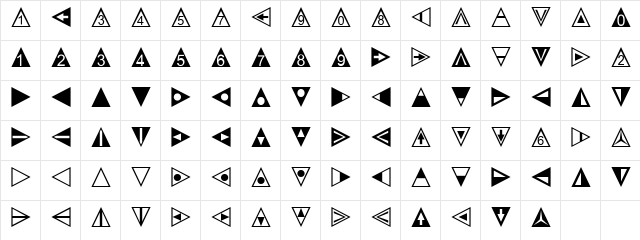
LTTapestry Triangle Regular
Design Context for LTTapestry Triangle
LTTapestry Triangle is a composed and adaptable typeface that performs quietly and consistently across a wide range of design contexts.
Pro Tip: Use LTTapestry Triangle in both headline and body roles to test its range before committing to a single application.